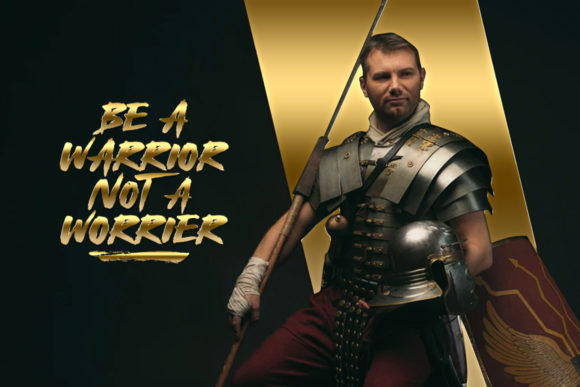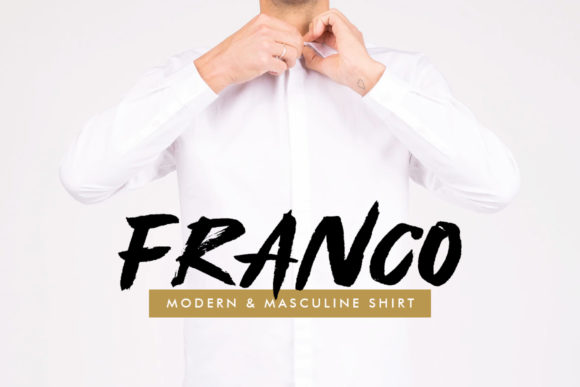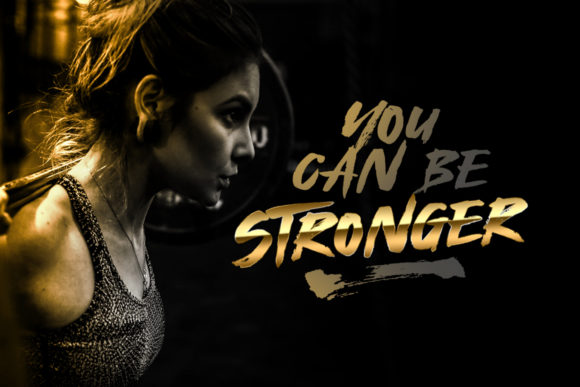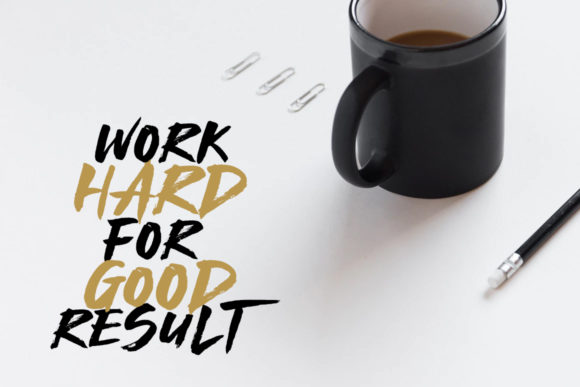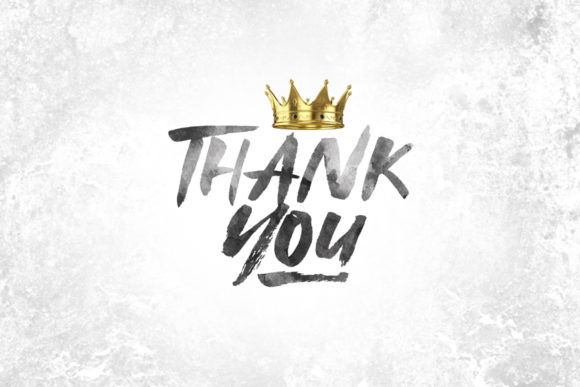
Royal Fighter Font
About Royal Fighter Font
Royal Fighter is a fresh handwritten brush font with a vintage feel. It can add a retro appearance to any design project!